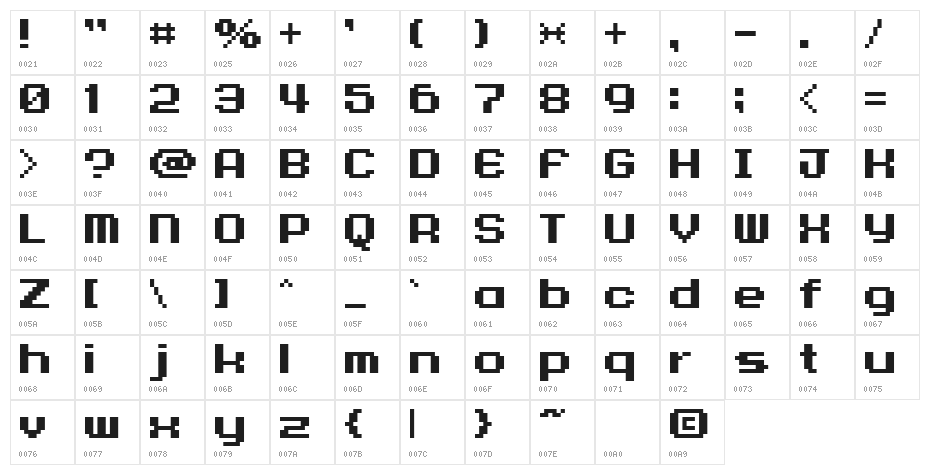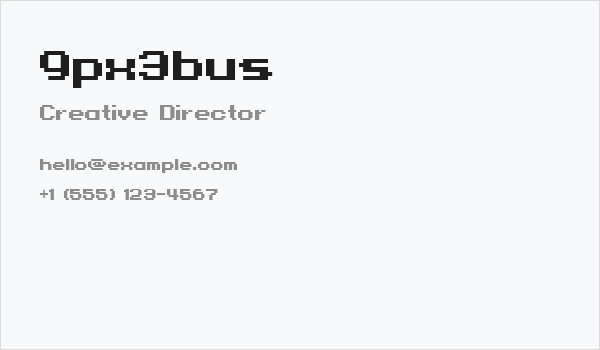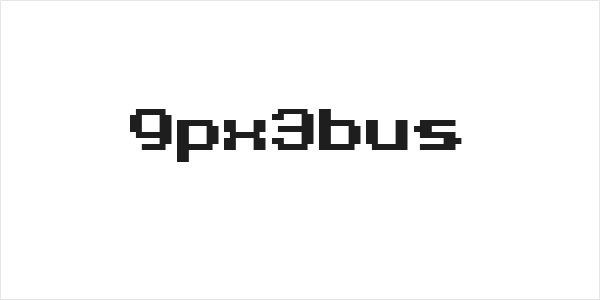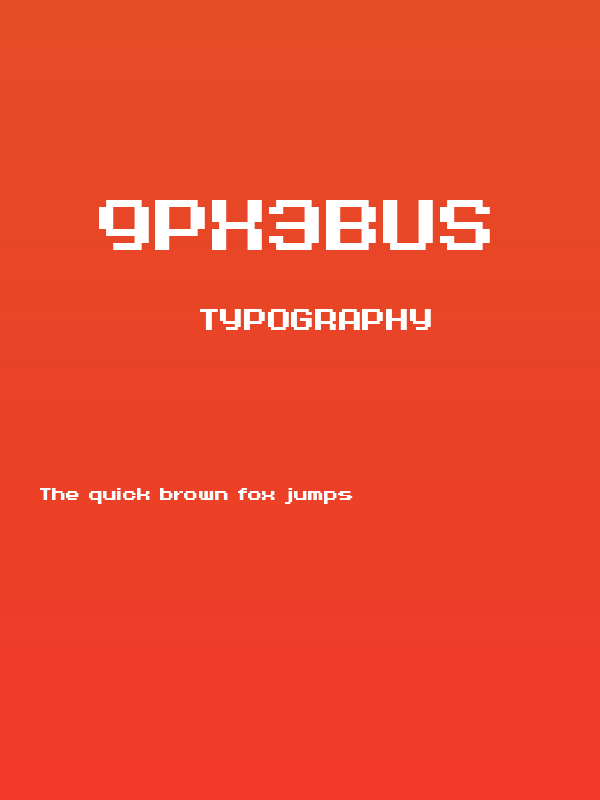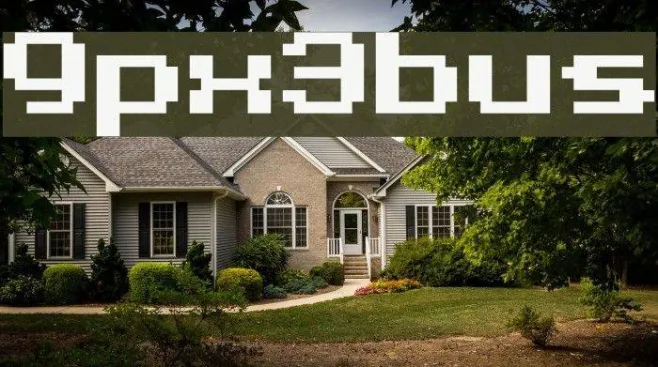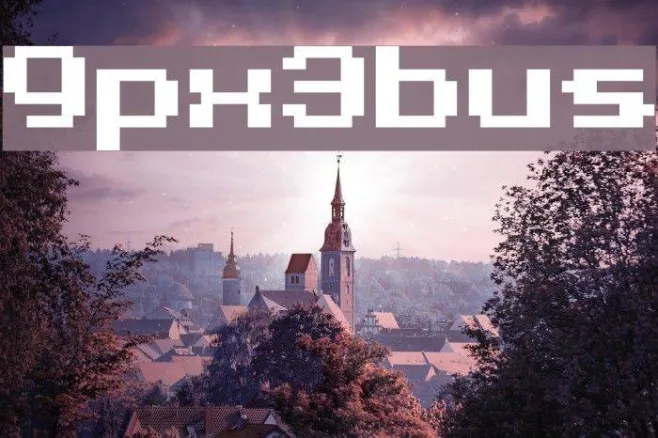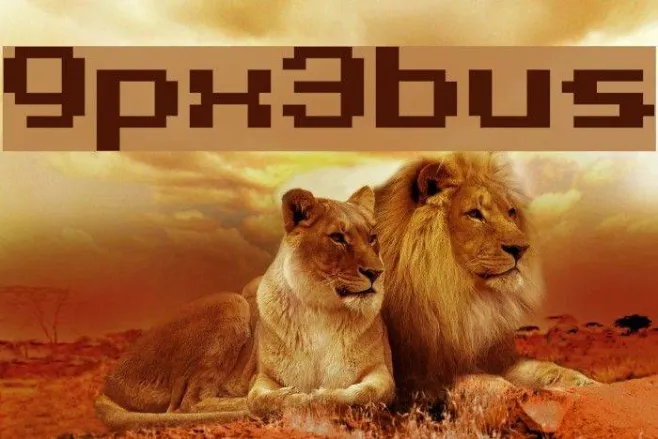
9px3bus Font
9px3bus Description
This font features a distinct pixelated style, reminiscent of early digital displays and classic video games. Each character is constructed with a blocky, grid-like appearance, emphasizing its retro aesthetic. The uppercase and lowercase letters maintain a consistent height, contributing to a uniform look. Numbers and special characters follow the same pixelated design, ensuring a cohesive visual experience. The font's simplicity and clarity make it ideal for projects that aim to evoke nostalgia or a digital theme.
| Use Case | Logos, Headlines, Digital Art |
| Proposed Projects | Ideal for video game design, retro-themed posters, digital art projects, and any creative work that seeks to capture a nostalgic or digital atmosphere. |